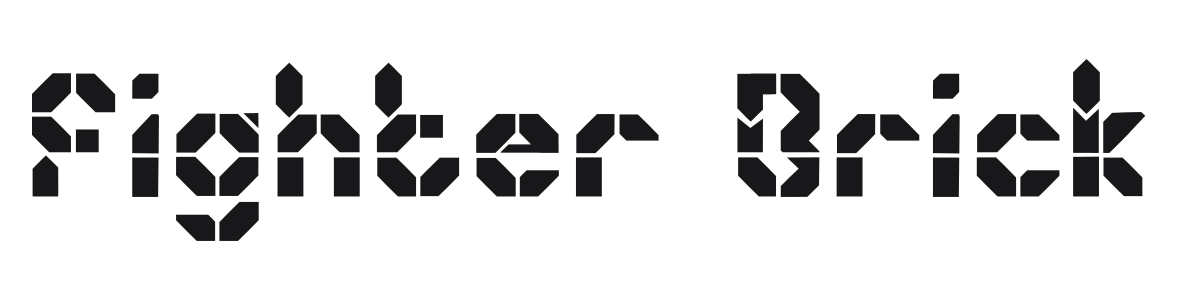
Fighter Brick
Fighter Brick is a bold modular display font built from chamfered brick-like segments, as if each letter were assembled from individual tiles. The gaps between segments give it a distinctive textured rhythm that reads as both retro-digital and street-ready. Strong at large sizes for gaming branding, sports graphics, and urban-flavored headlines.